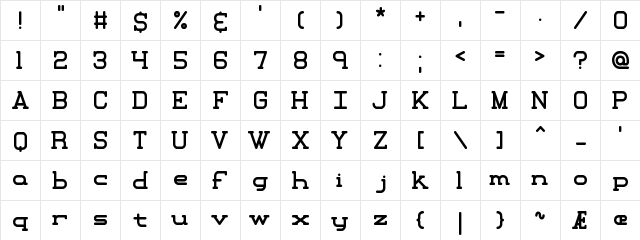
Xipital BRK Regular Font Preview
Xipital BRK Regular
Xipital BRK Regular Font Details
| Foundry | ƎIGMA FONTS |
| Designer | ƎIGMA FONTS - Brian Kent |
Design Context for Xipital BRK Typeface
Xipital BRK offers clean, dependable letterforms without strong stylistic allegiance, making it a practical choice for designers who need flexibility.